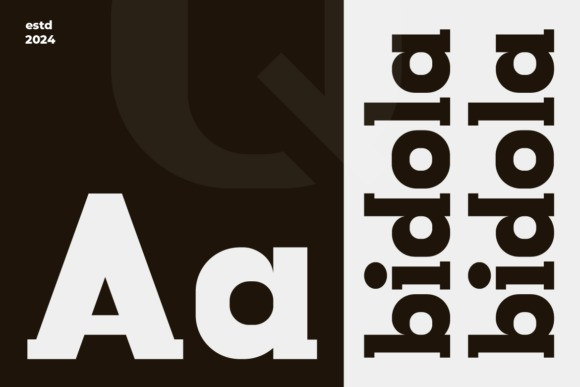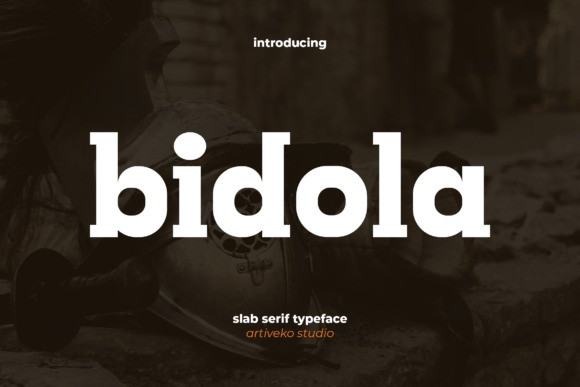
Bidola Font
Bidola Font is a distinctive slab serif font designed by Iwan Alwan. It features unique variations between uppercase and lowercase characters, adding a creative touch to your designs. With multilingual support, Bidola offers versatility for global projects, making it an excellent choice for branding, headlines, and editorial work. Its bold yet elegant form enhances readability while maintaining a strong visual impact, perfect for those looking to make a statement with their typography.
This fonts are great for product logo,wedding card logo, clothing brand logo, Vintage design and much more.